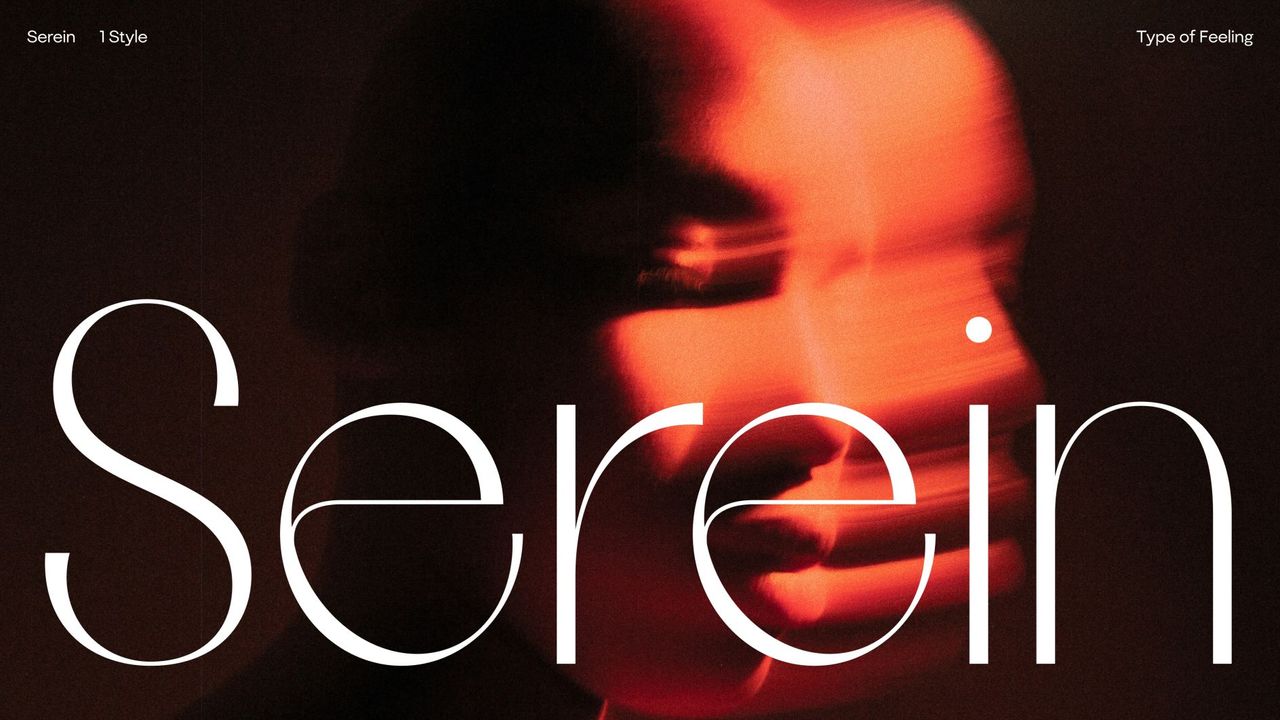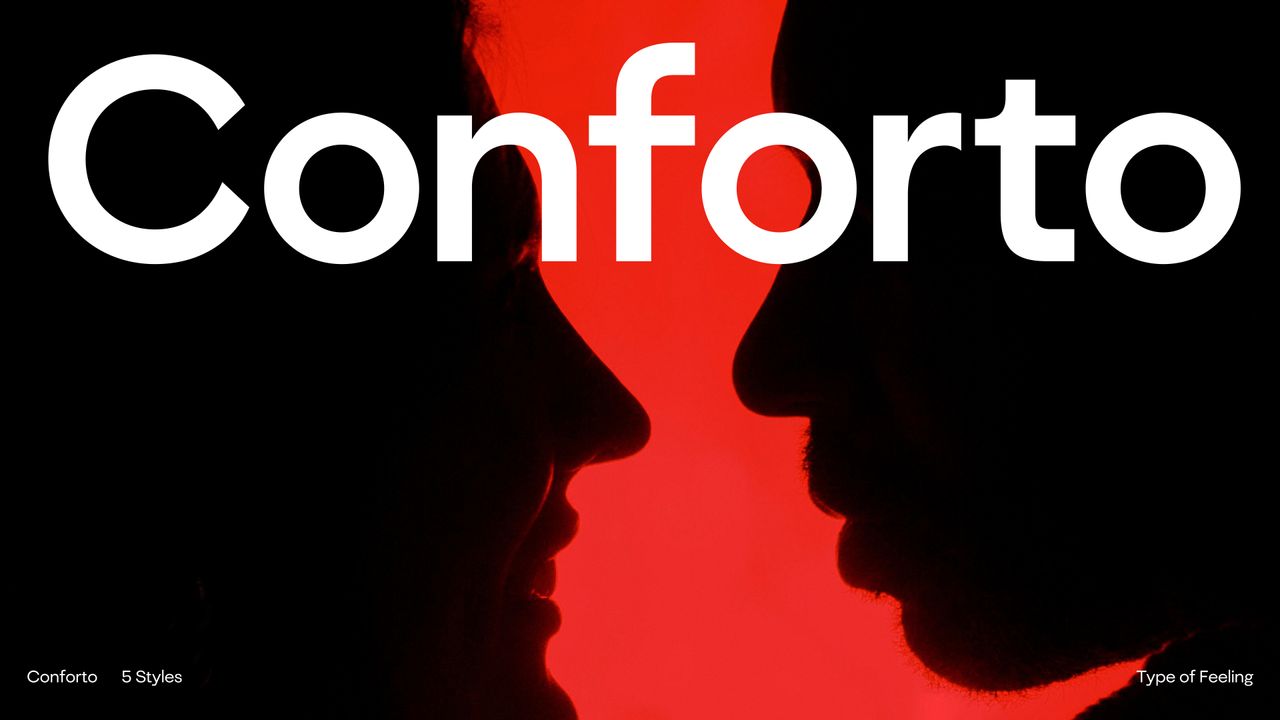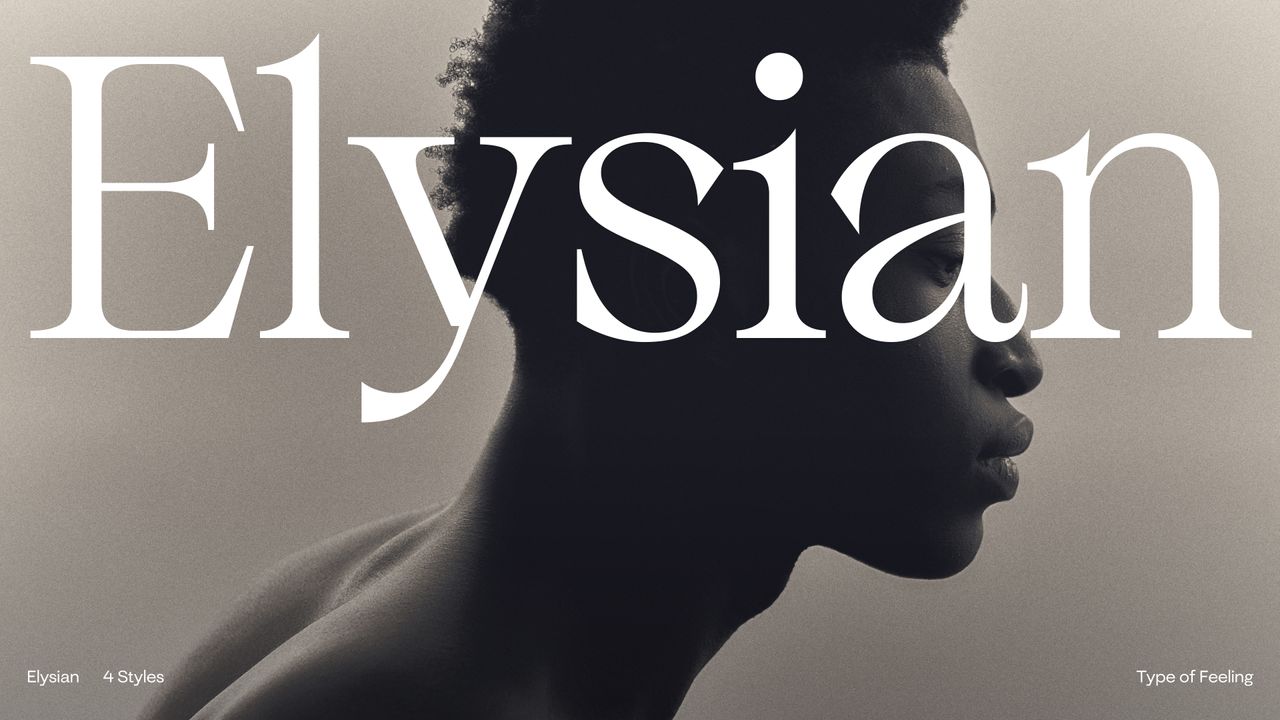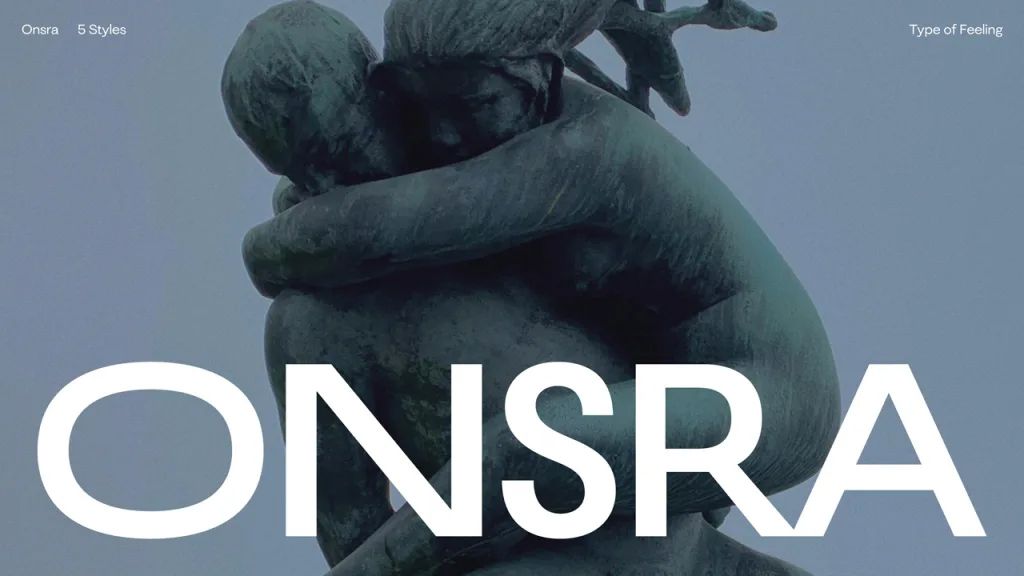
Jessica Walsh launches emotion-driven font foundry Type of Feeling
The indie "passion project" embraces candid design.
Designer Jessica Walsh has recently announced her latest creative endeavour Type of Feeling – a unique font foundry that taps into the power of emotion. When we think of evoking certain feelings in design, the power of typography as an emotive source is rarely at the forefront of our minds, yet Jessica and her team are rewriting the industry with an immersive collection of bespoke fonts that are evocative, thoughtful and powerful in their own right.
Placing feelings over aesthetics isn't something that is typically considered in typography design, yet the &Walsh founder's approach reintroduces a personalisation to the industry that is often overlooked. From sonder to joy, each bespoke typeface is a testament to the untapped visual storytelling to be found within emotion-driven typography – a limitless spectrum with boundless potential.
Type of Feeling launches with seven bespoke Typefaces, each inspired by a range of distinct emotions. Each design carries its own tone, built to stand out against conventional "workhorse" typefaces to build brand stories that shine amongst a sea of conformity.
"We’ve found that many foundries focus on creating typefaces for mass distribution rather than creating something that is really unique and emotive," founder Jessica Walsh tells Creative Bloq. "This gap in the market combined with our custom typography experience inspired us to create Type of Feeling: a foundry focused on creating niche and distinct typefaces that can help brands stand out through their uniqueness," she adds.
Type of Feeling exists to fill a void within the typography sector, prioritising quality and nuance over scale, while avoiding the novelty of fleeting trends. "In our experience, designing to fit the current trends means that within a few years, your brand will blend in among your competitors, ultimately meaning you need to rebrand again sooner," Jessica says. "I believe all the best creative work evokes feelings or emotions. Typography is so interesting because it allows for a deeper feeling beyond the words you are reading," she adds.
Tackling abstract emotions gives Type of Feeling a unique creative stance, with examples such as "'Jubel,' the exuberant expression of joy, or 'Ssonder,' which is the realization that everyone has a life as full and as complex as their own," exemplifying the foundry's careful dissection of intangible emotion. "We then collected references of how that emotion could come to life in its form, ascenders, x-heights, etc," Jessica says. Flourishes of these sensuous words appear across the typographic design, embedded in the terminals, tails, counters and more, to illustrate the nuanced depth of emotion.
While the creative team are said to be working on over thirty new typefaces, the foundry plans to release two unique fonts per year. As well as providing retail options, the foundry offers bespoke commissioned typefaces, adopting a meticulous four-stage process comprised of "strategy, concepting, execution and testing," to meet the individual needs of brands.